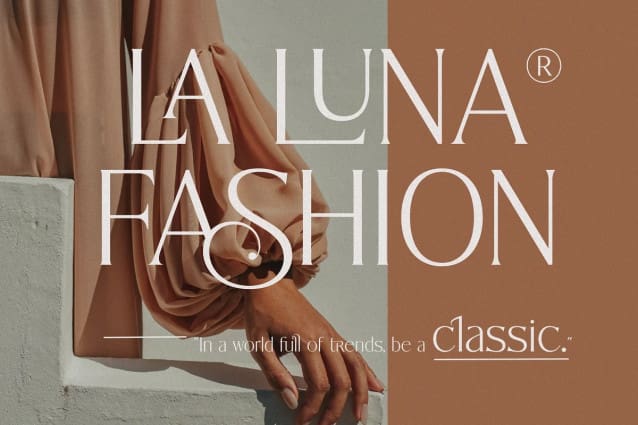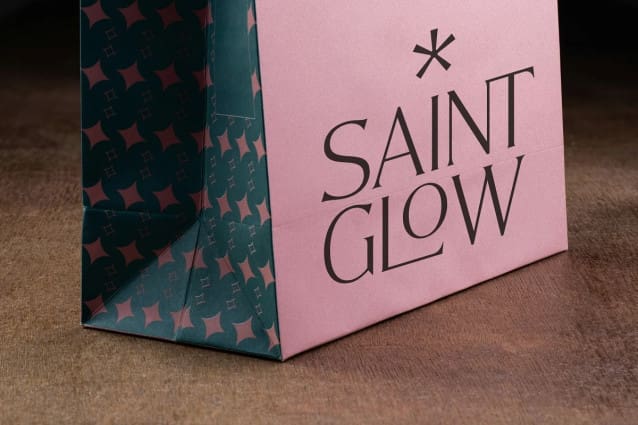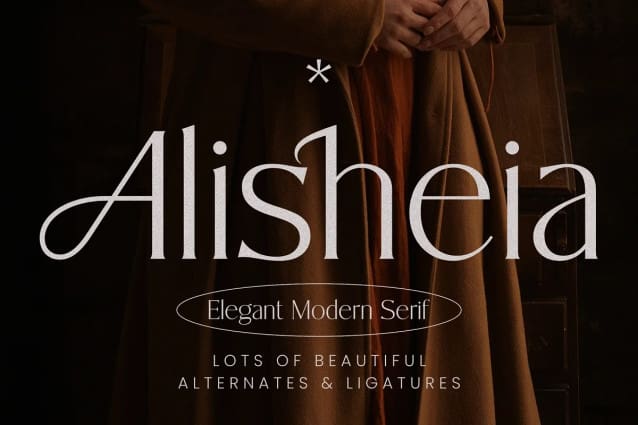
Alisheia Font
Alisheia Font  – Trendy, classy & modern stylish serif font for your luxury projects. The elegant, fashion, and classic style of the Alisheia font will be perfect for branding projects, logos, invitations, masterheads, and more. This font has many alternatives and binders will help you create a unique and original logo or website header design!